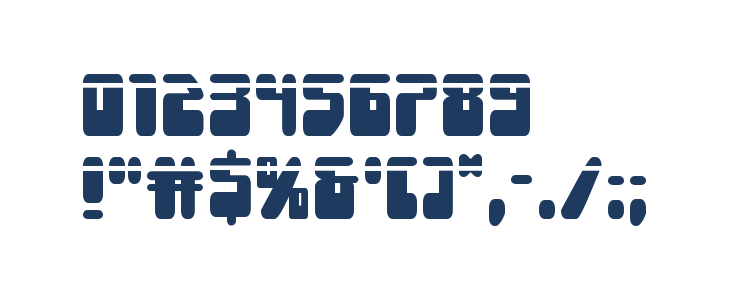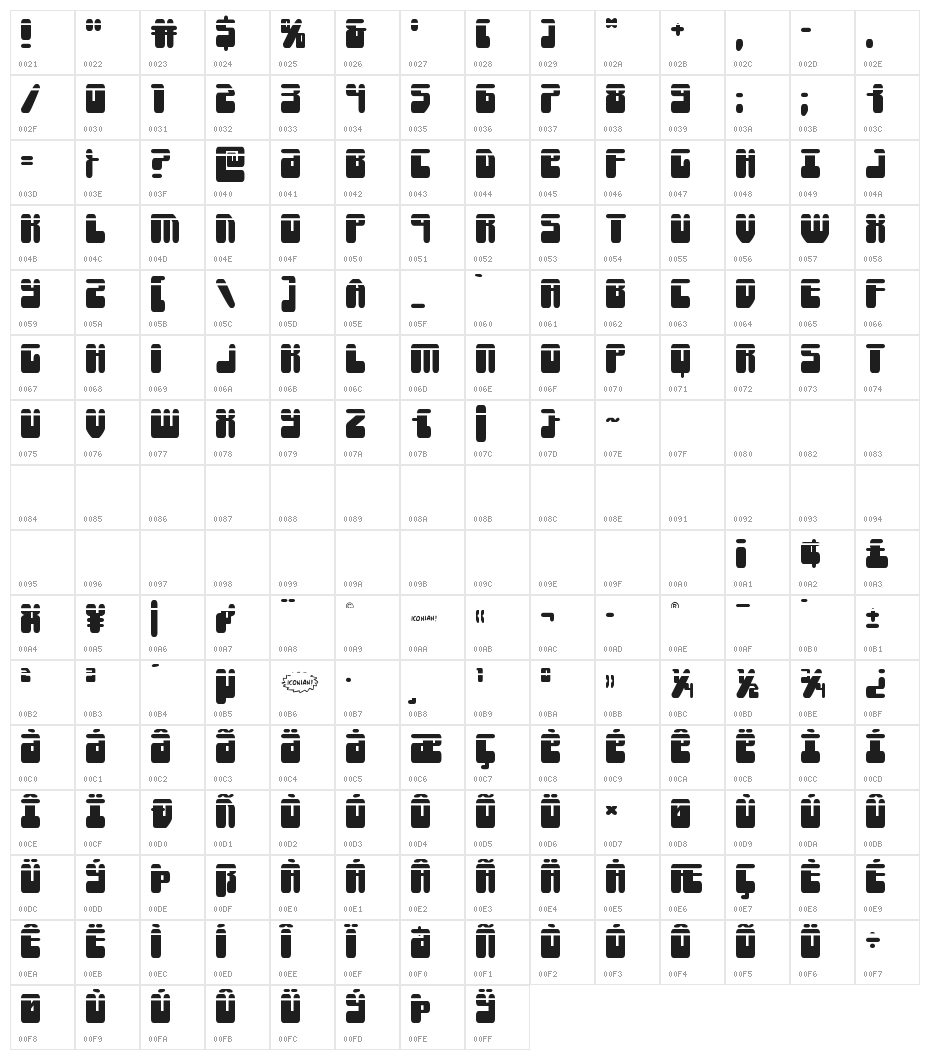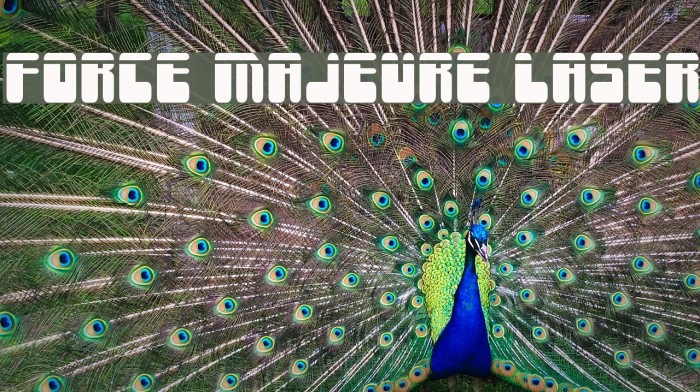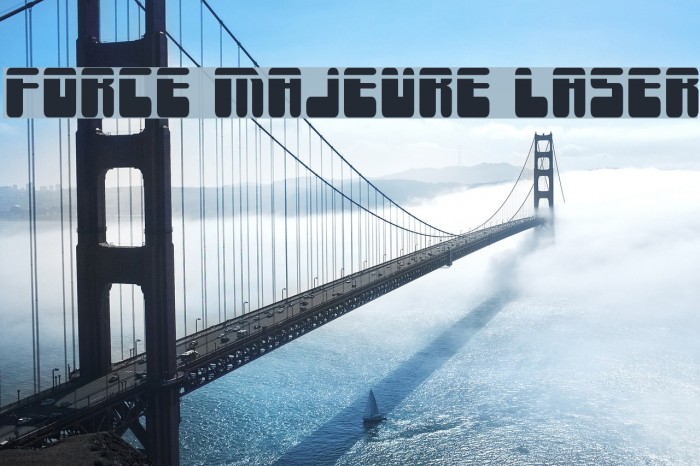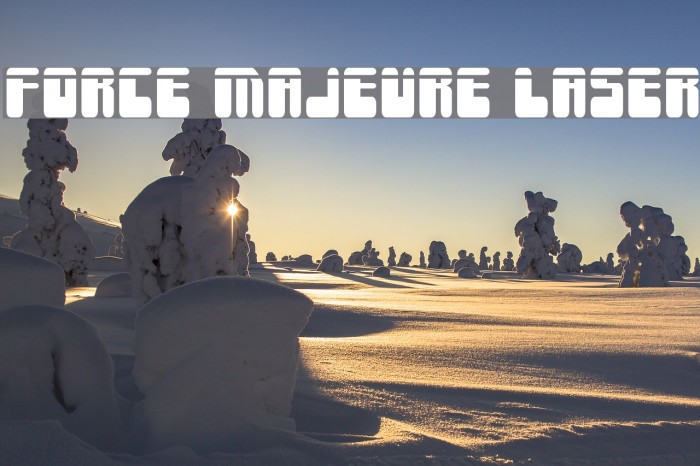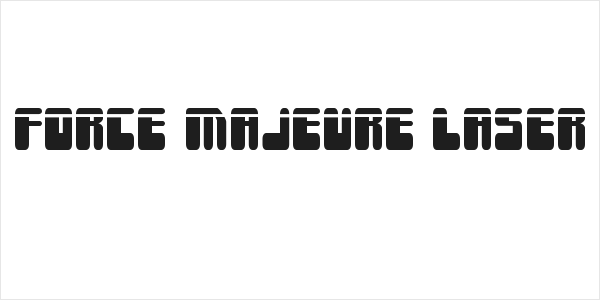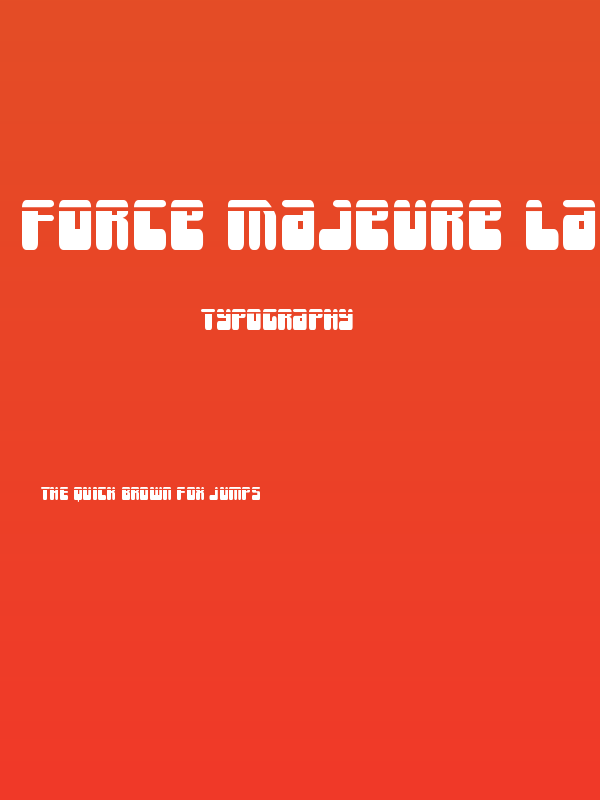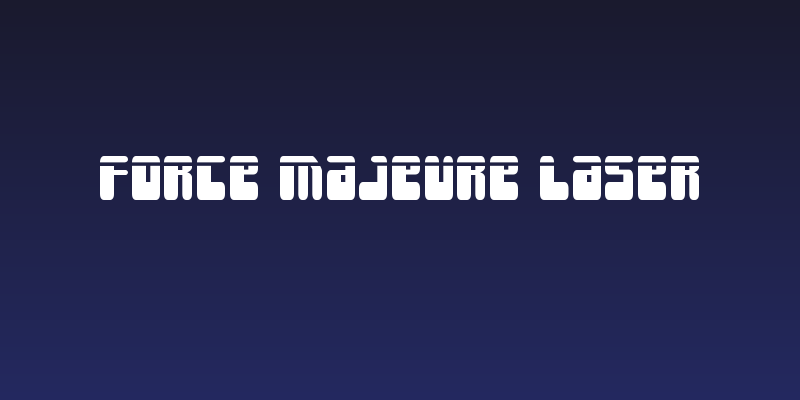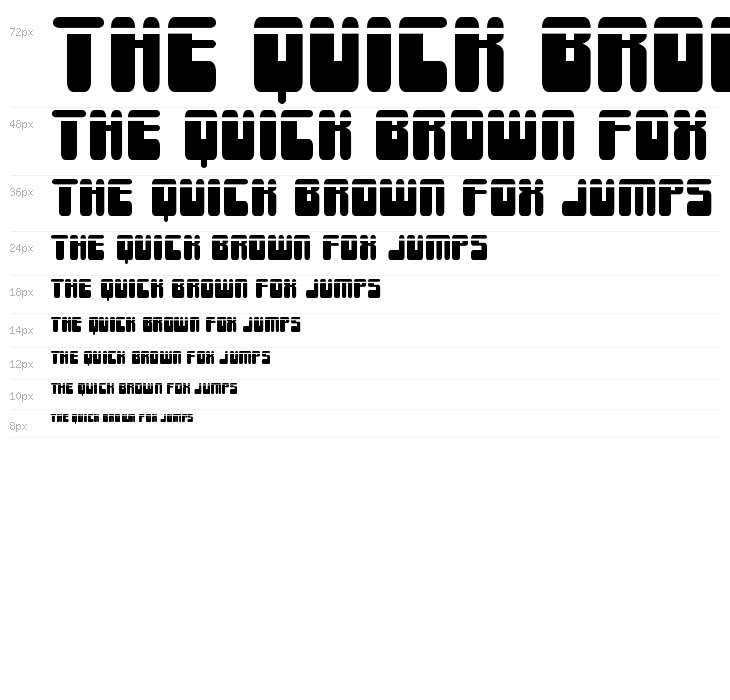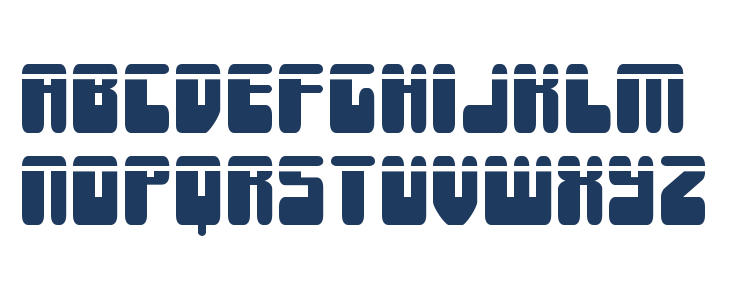
Force Majeure Laser Font
Force Majeure Laser Description
This font features a bold, futuristic design with a distinctly modern aesthetic. The characters are constructed with thick, uniform strokes, creating a strong visual impact. The geometric shapes and rounded edges give it a sleek, contemporary look. The uppercase and lowercase letters maintain a consistent style, with a focus on symmetry and balance. The numerals and special characters are designed to complement the overall style, ensuring coherence across all elements. This font is ideal for projects that require a bold and eye-catching typeface.
| Proposed Projects | Ideal for sci-fi themed designs, technology branding, video game titles, and modern posters. |